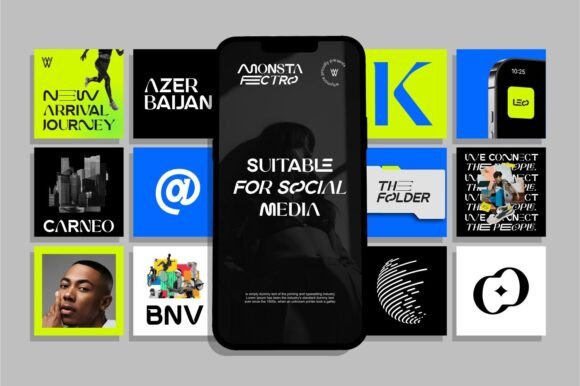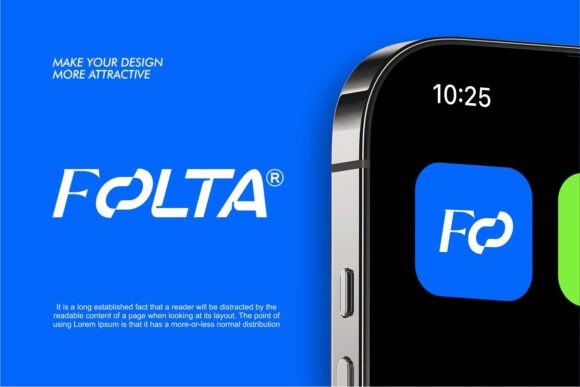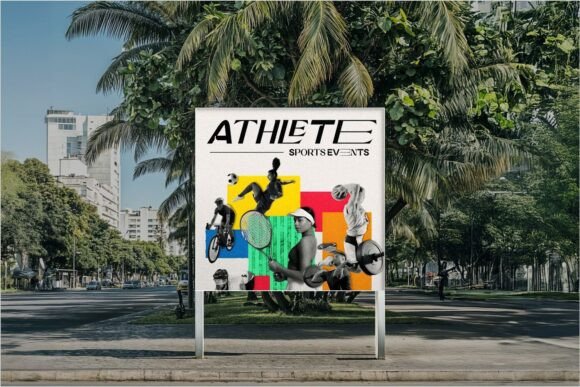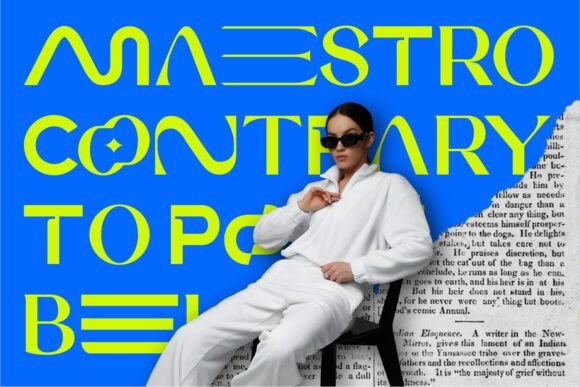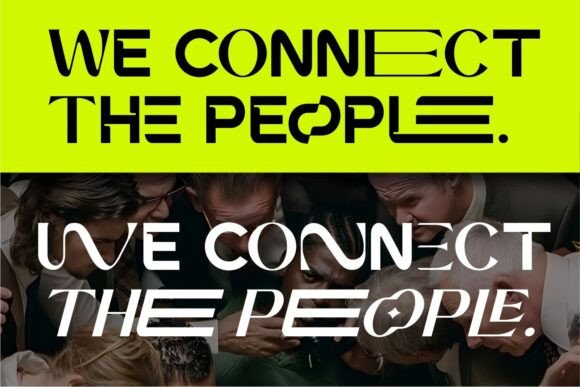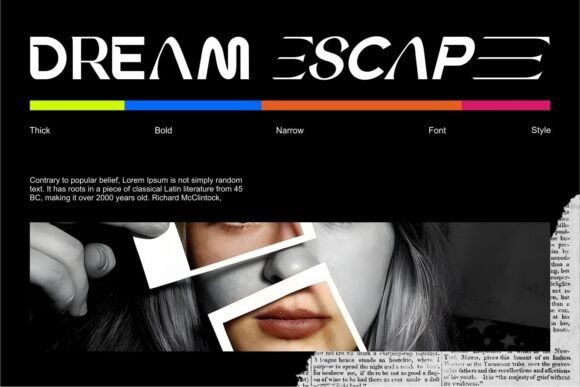
Introduction to Monsta Fectro Font
Do you remember the moment when you stumbled upon the perfect font for your creative project? The one that perfectly captures the essence of your brand’s identity and leaves a lasting impression on your audience? For designers, finding that elusive font can be a game-changer. It’s like stumbling upon a hidden treasure that elevates your designs to the next level. And for those who are about to discover the Monsta Fectro Font, get ready to unleash your creativity like never before.
This bold geometric sans-serif font is a design resource that will take your branding to new heights. With its unique blend of sharp edges, modern Y2K twist, and transparent background options, Monsta Fectro Font is the perfect tool for creatives who want to make a statement. Whether you’re working on a high-quality graffiti-style poster or a futuristic logo, this font is sure to deliver high-impact energy that will leave your audience speechless.
Key Features of Monsta Fectro Font
- High-quality font with a unique, bold design perfect for creative projects.
- Monsta Fectro Font offers a transparent background, making it ideal for design projects requiring a clean and minimalist look.
- Its unique characteristics, including a bold and playful style, make it a great choice for creative projects requiring a fun and energetic tone.
Honest Review: Monsta Fectro Font
What works well: ✨ The Monsta Fectro Font has a unique, bold design that can add a lot of personality to your projects. It’s perfect for use in posters, flyers, and other marketing materials where you want to grab attention. The font is also highly customizable, allowing you to adjust the size, color, and style to suit your needs.
- High-quality design that’s perfect for bold, attention-grabbing projects
- Wide range of customization options for a tailored look
However, there are a few limitations to consider: ⚠️ The font can be a bit overbearing if used in large quantities, so be sure to balance it with other design elements. Additionally, the font’s bold design may not be suitable for use in more subtle or professional projects.
Overall, I’m impressed with the Monsta Fectro Font’s unique design and high level of customization. While it may not be suitable for every project, it’s a great resource to have in your design toolkit.
Monsta Fectro Font is commonly used in creative projects such as graphic design, branding, and advertising. It’s also great for adding a creative touch to social media posts, blog articles, and website content. With its transparent background, Monsta Fectro Font is perfect for overlaying on images and videos to create a unique visual effect.
Tips for Getting the Most Out of Monsta Fectro Font
To get the most out of Monsta Fectro Font, experiment with different font sizes, colors, and combinations with other design elements. You can also use the font in conjunction with other design resources, such as graphics and icons, to create a cohesive